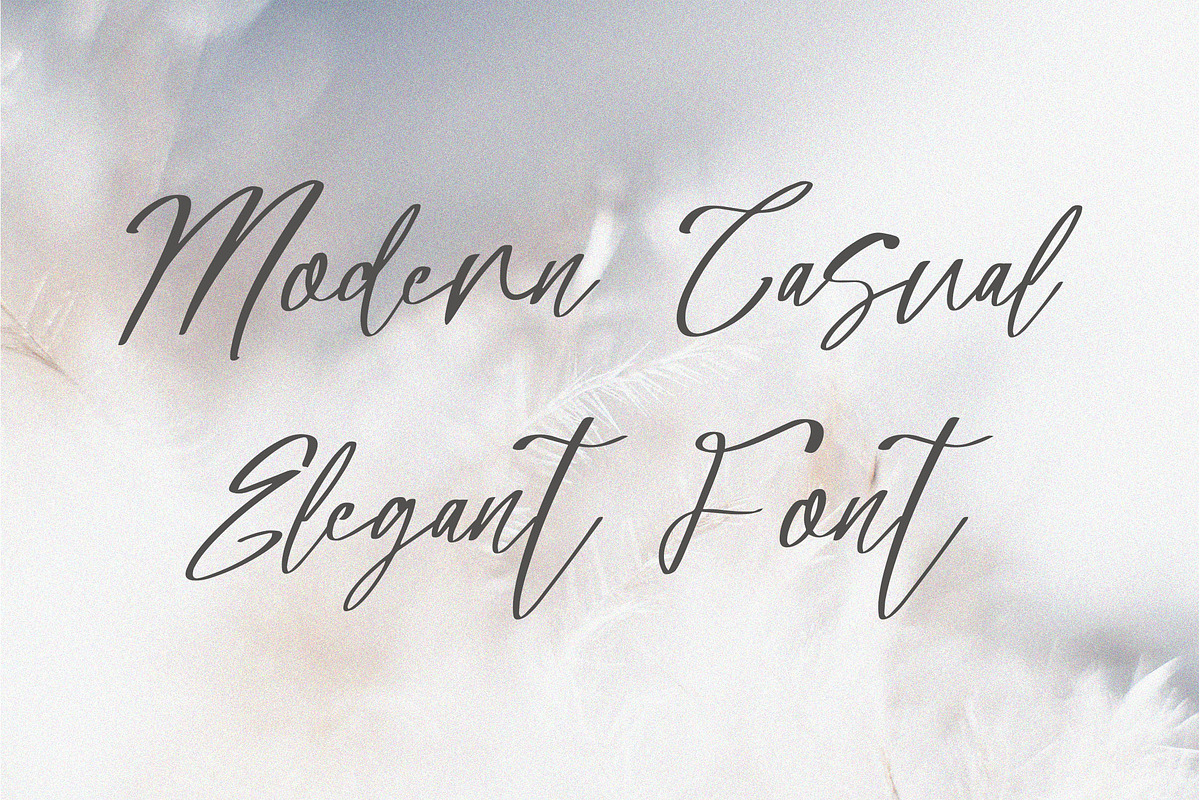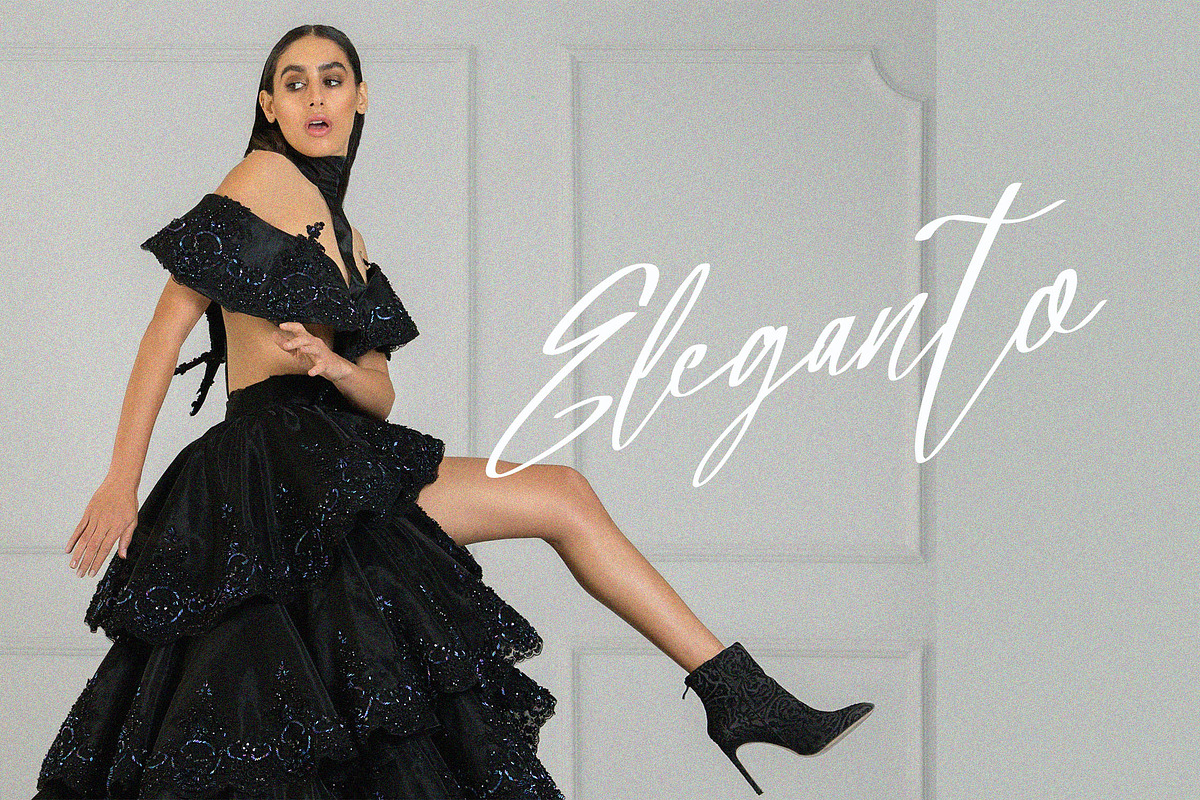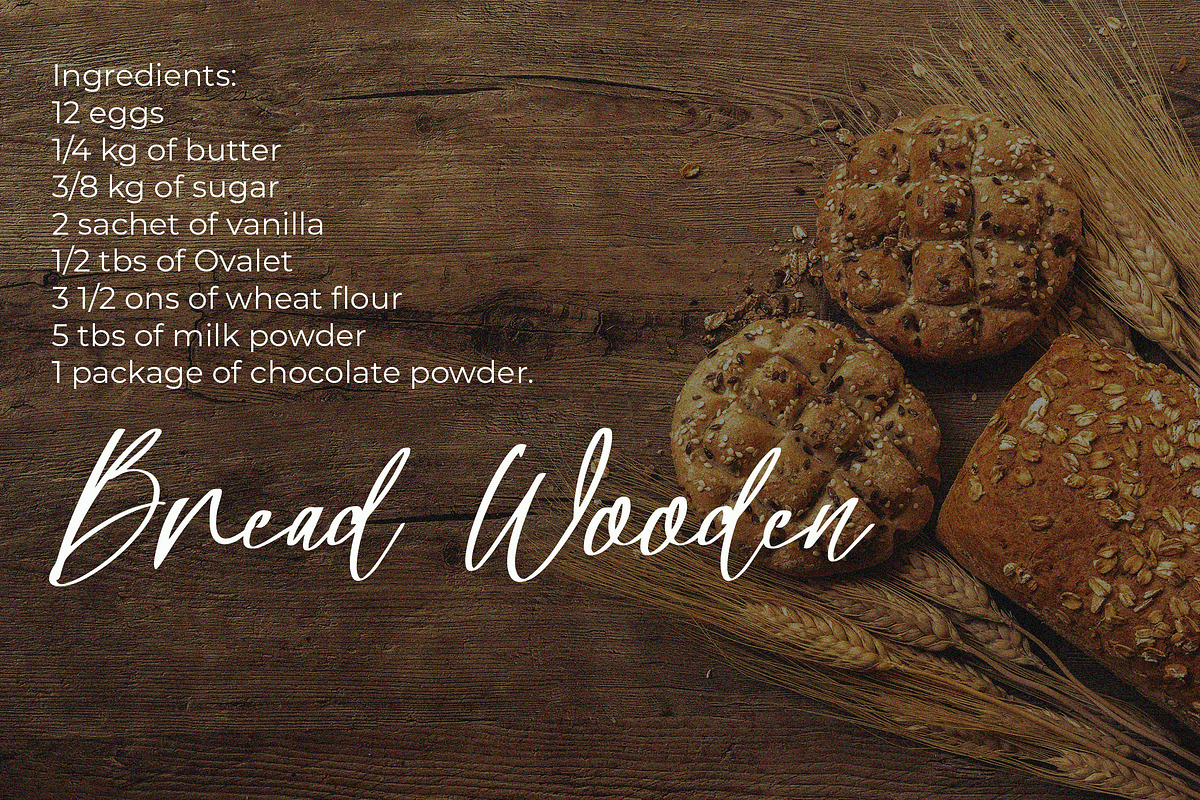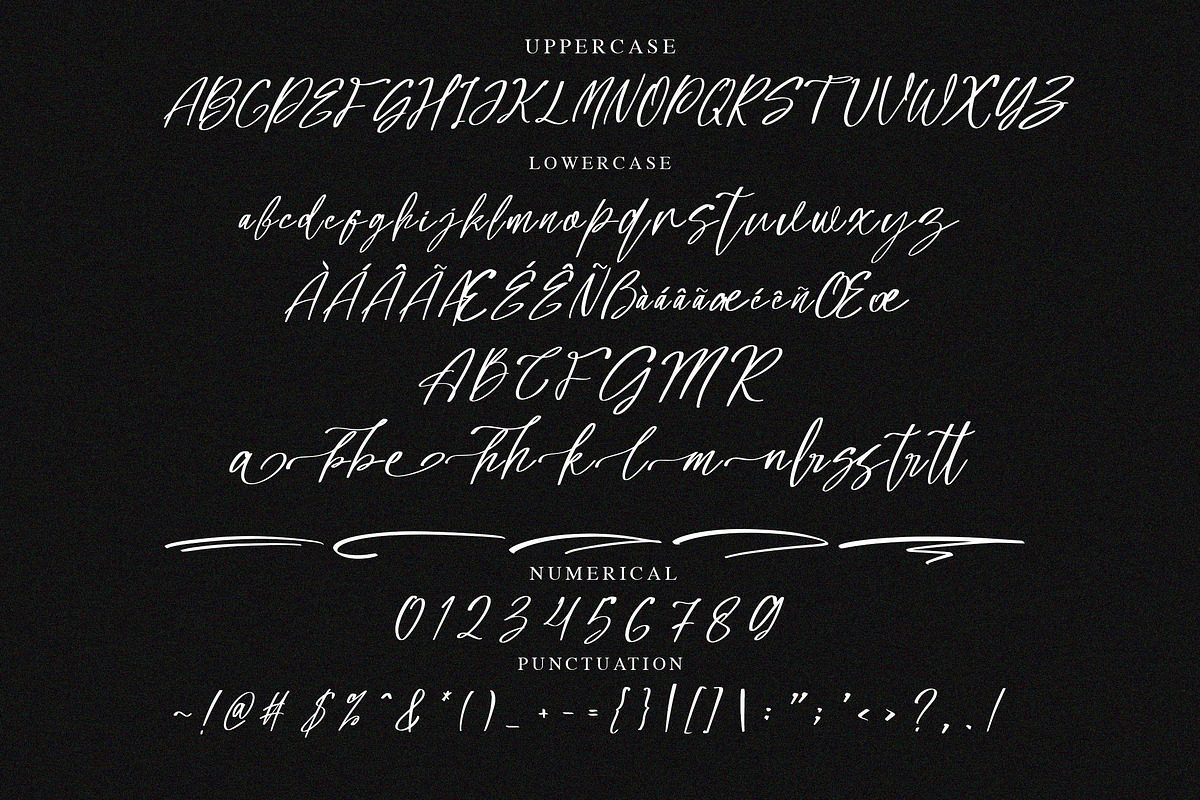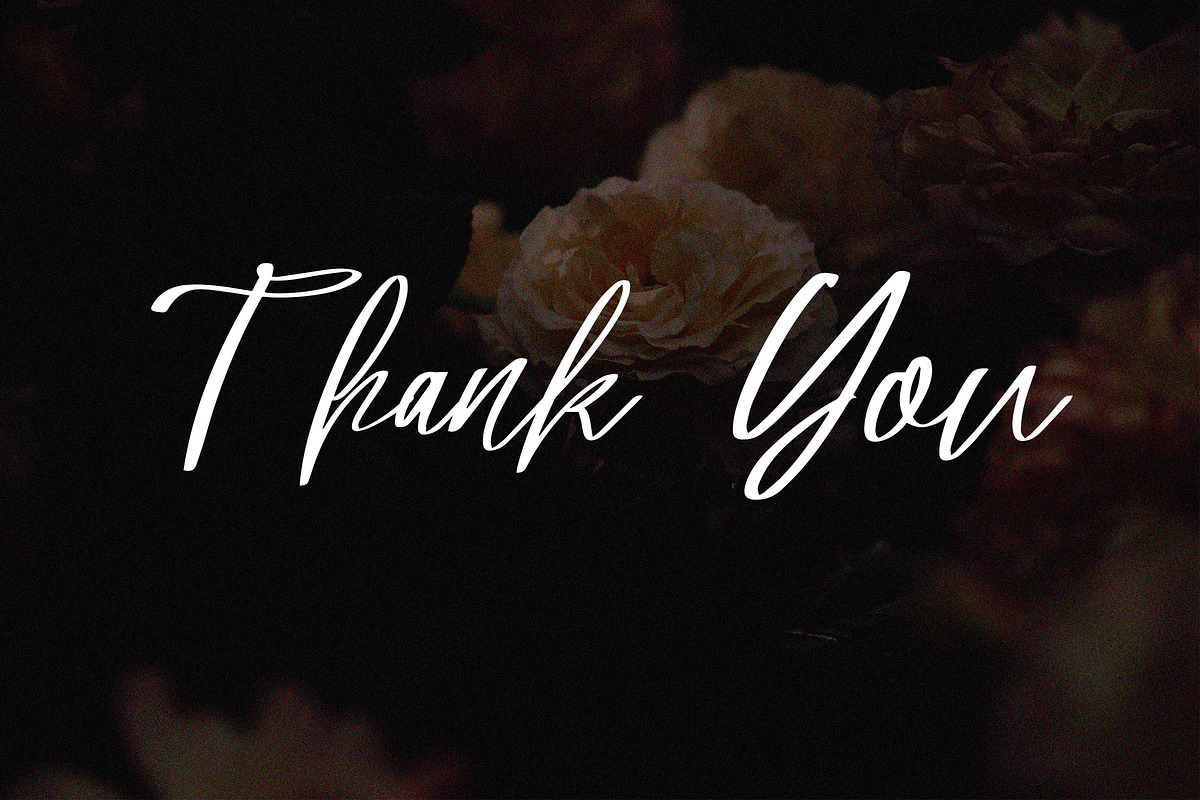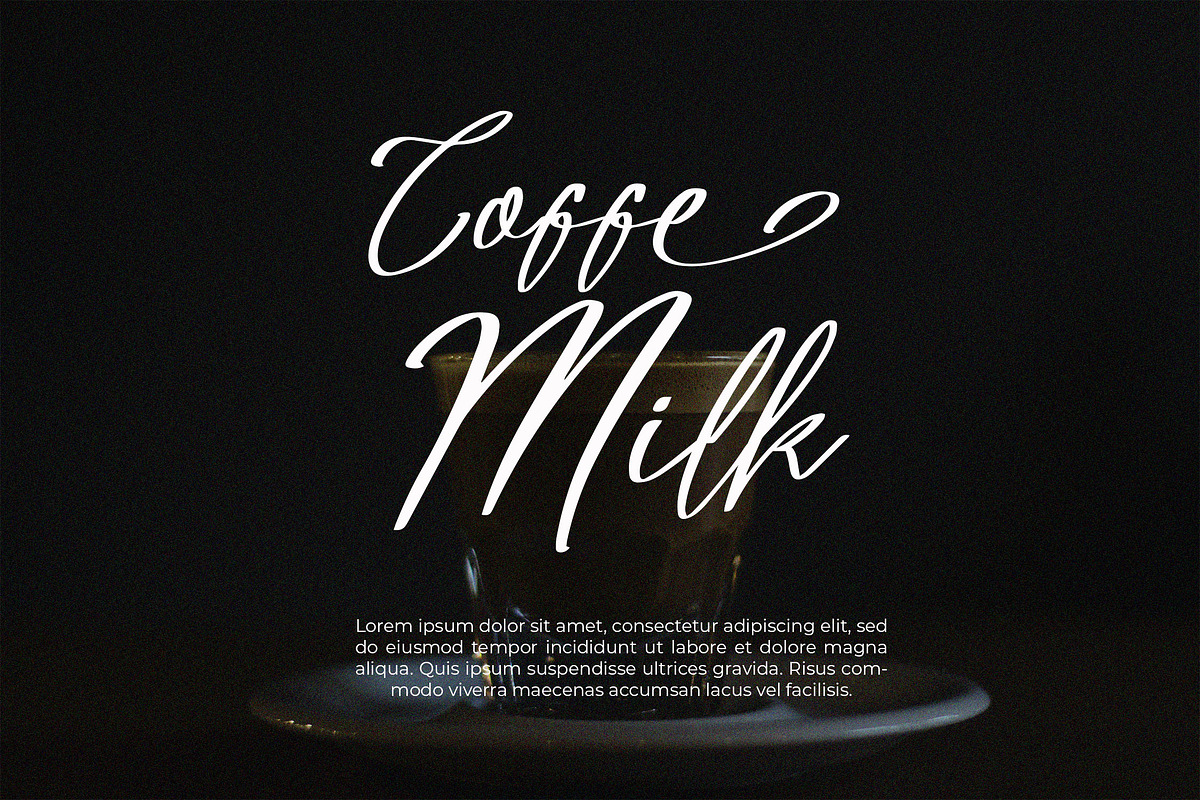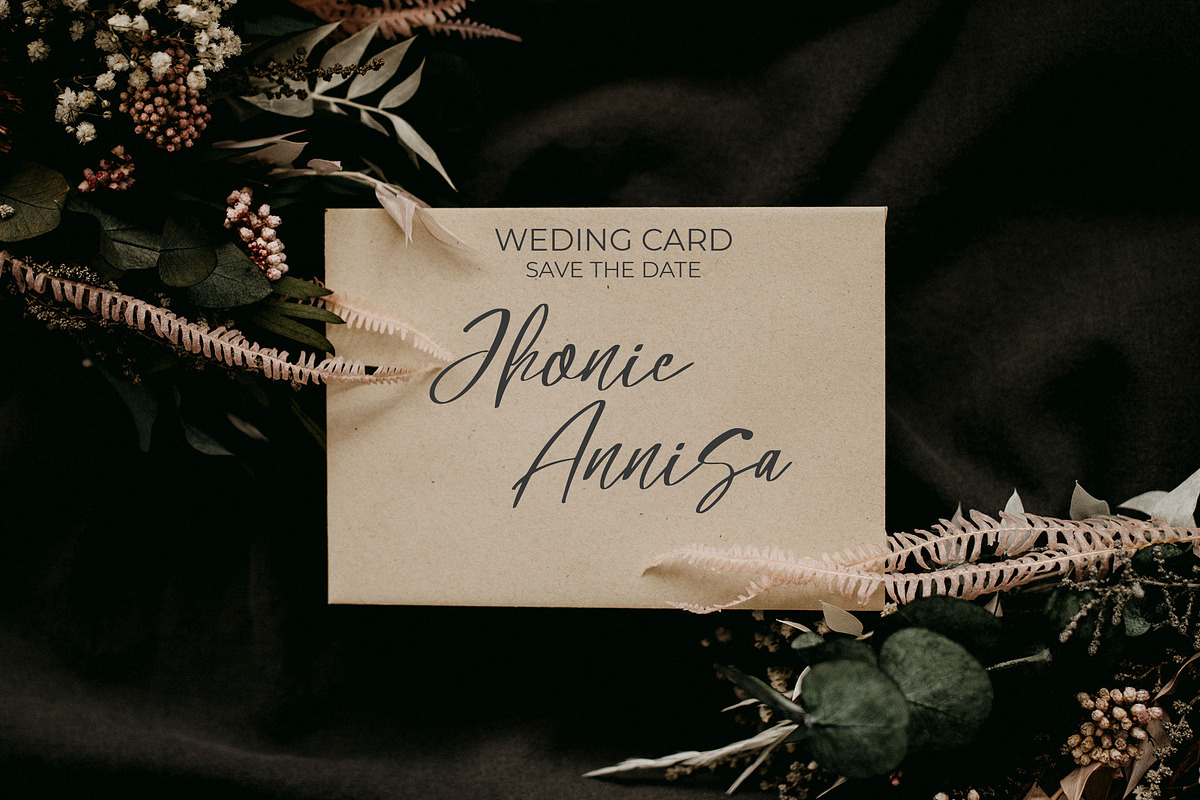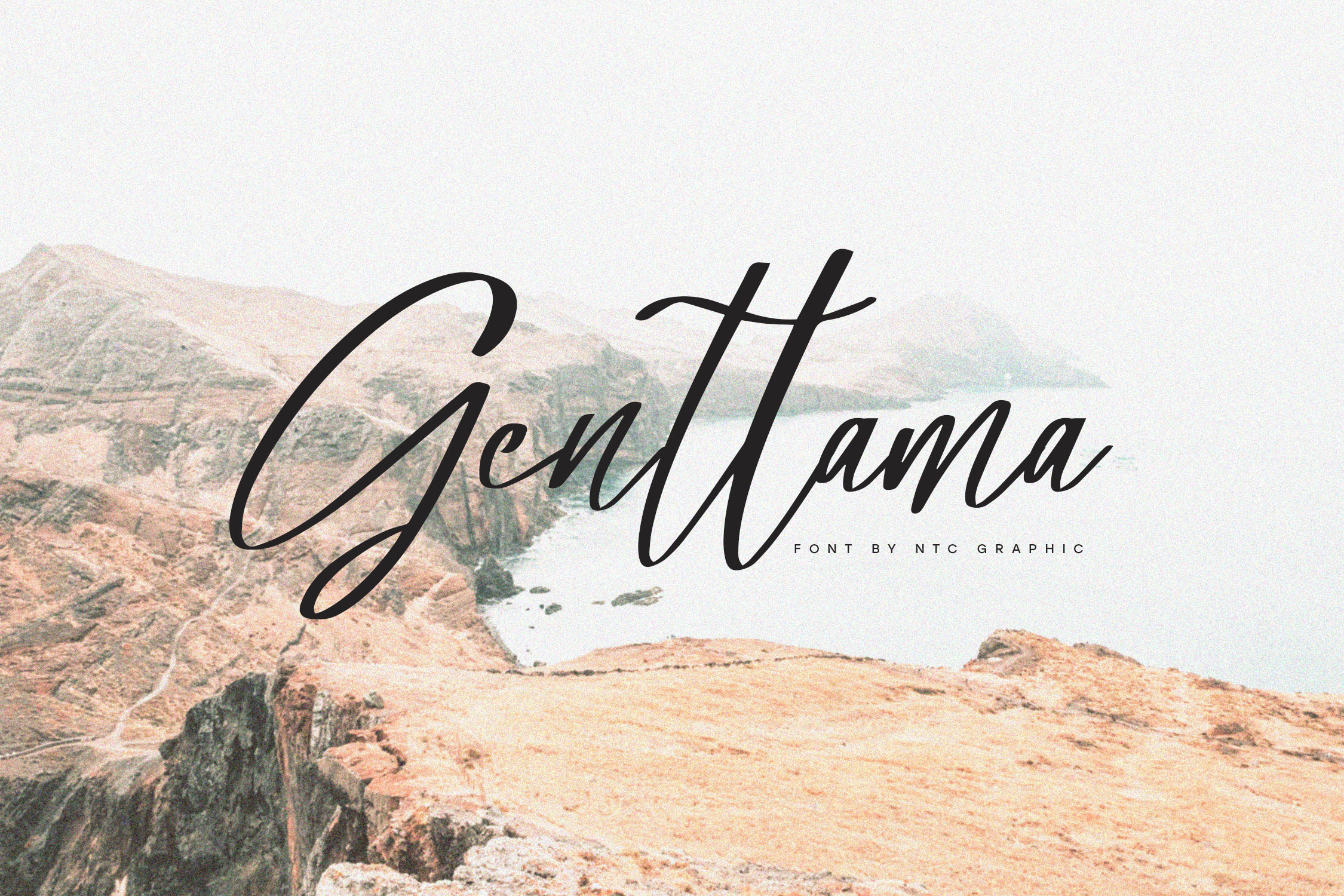
Genttama Elegant Script Font
Genttama is a elegant script font with handwritten style. Is a font style that is made with scratchy shapes font characters are so beautiful. Can be applied to support the graphic appearance of the product to be more attractive and unique.
- Stylistic Alternate